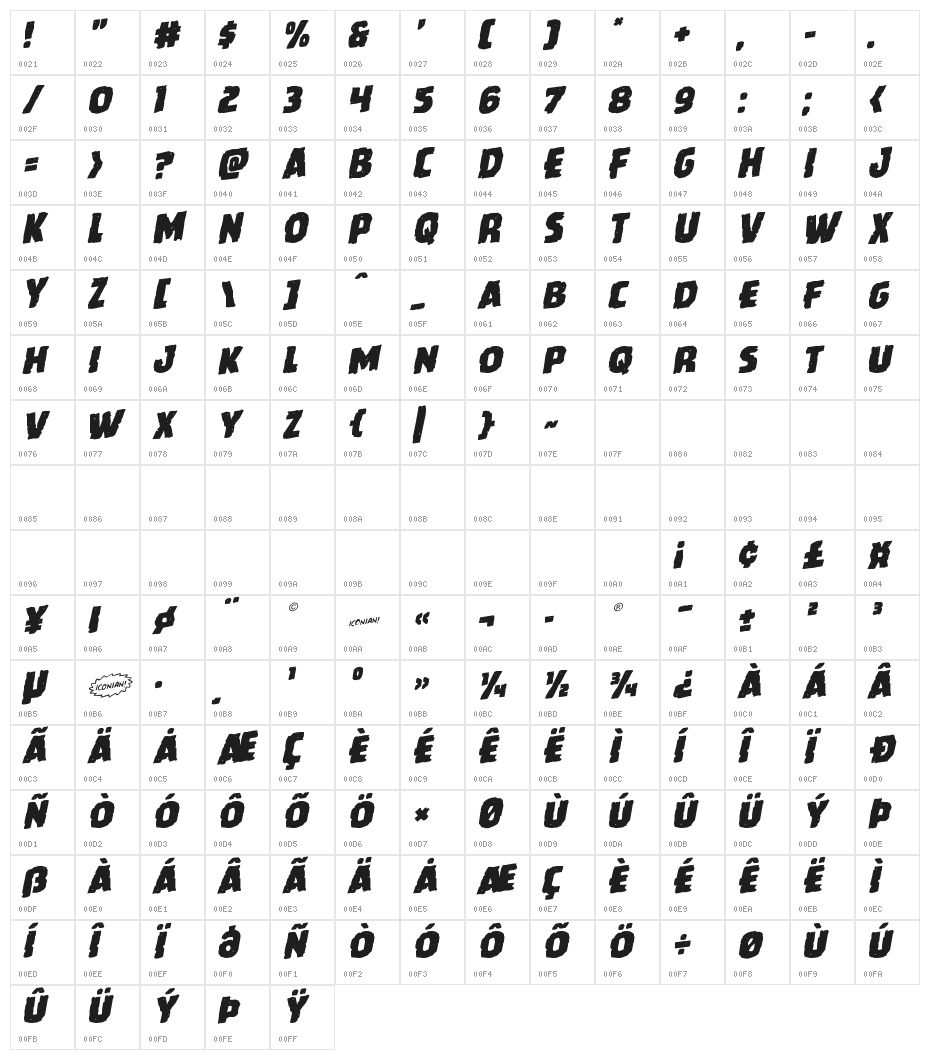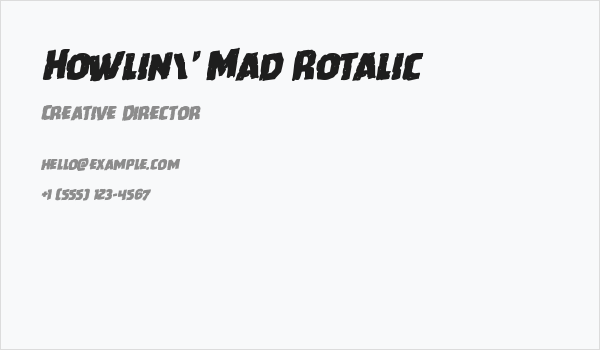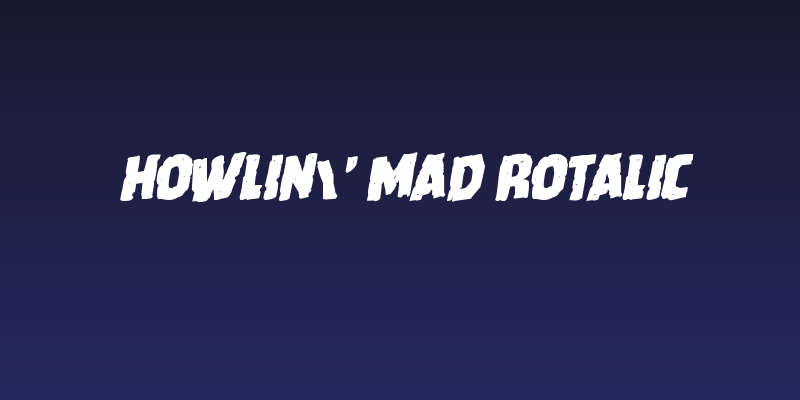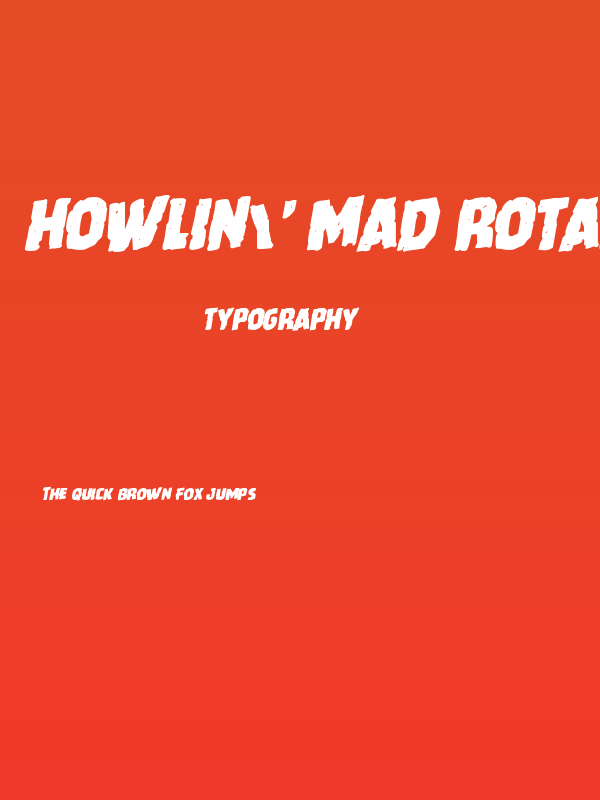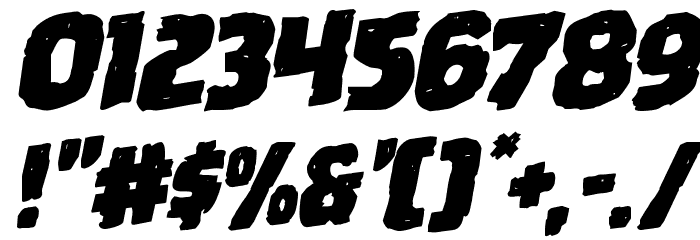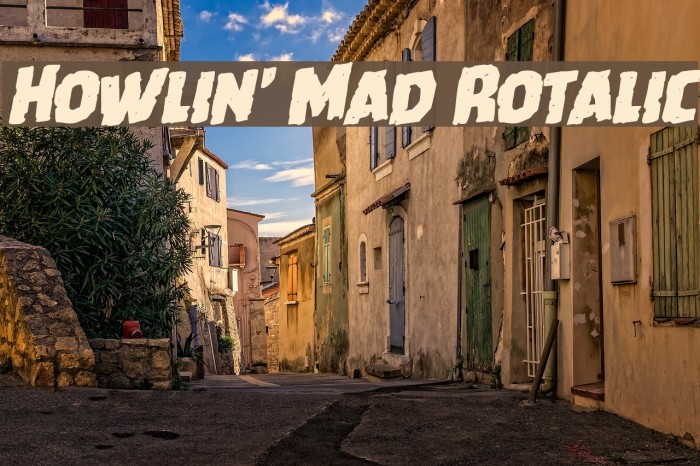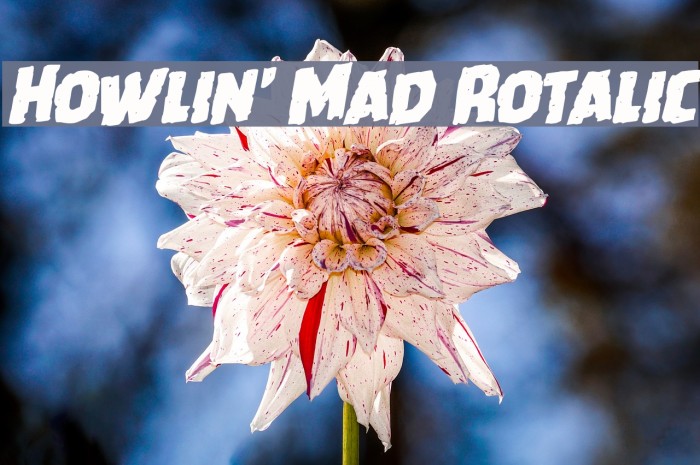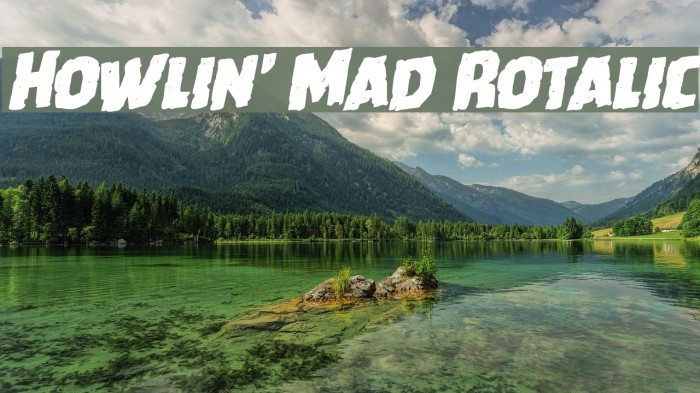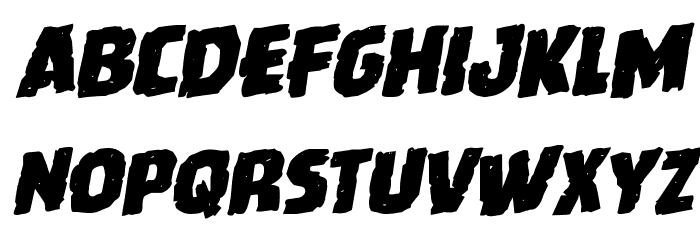
Howlin' Mad Rotalic Font
Howlin' Mad Rotalic Description
This font features a bold, energetic style with a distressed, brush-like texture. The characters are slightly slanted, giving a dynamic and aggressive appearance. The uppercase and lowercase letters maintain a consistent weight, enhancing the boldness of the font. The numbers and special characters follow the same rugged aesthetic, making them stand out. This font is ideal for projects that require a strong, impactful visual presence, such as posters, headlines, or branding materials that aim to convey a sense of action or excitement.
| Use Case | Headlines, Posters, Branding |
| Proposed Projects | Ideal for posters, headlines, branding, and any project needing a strong visual impact. |